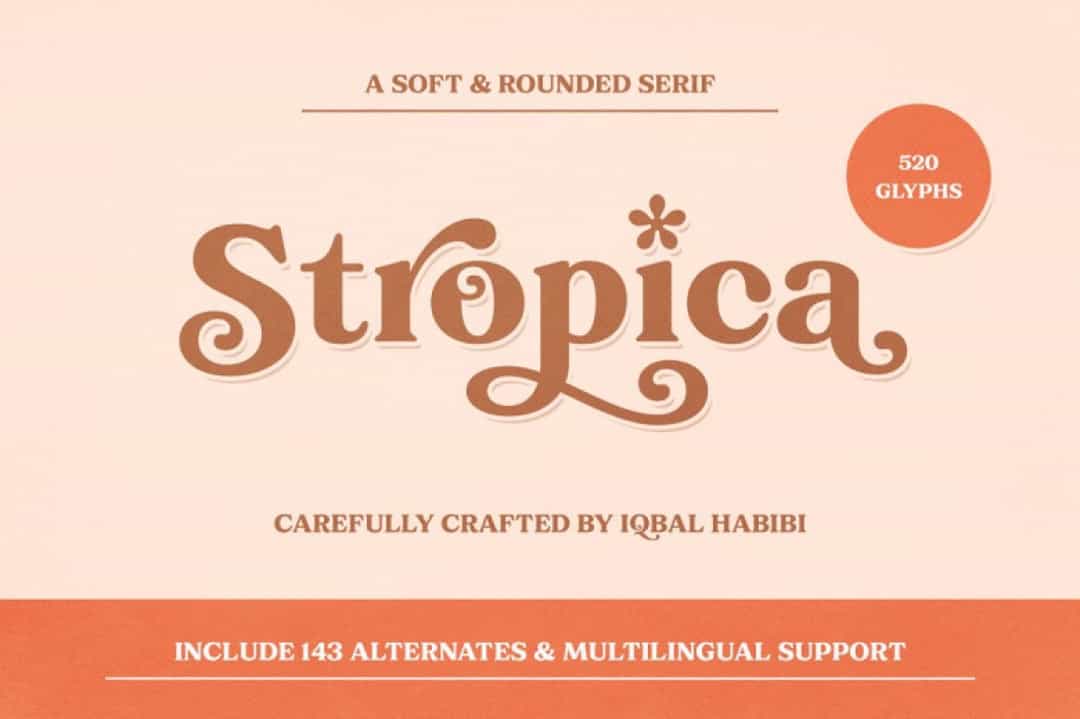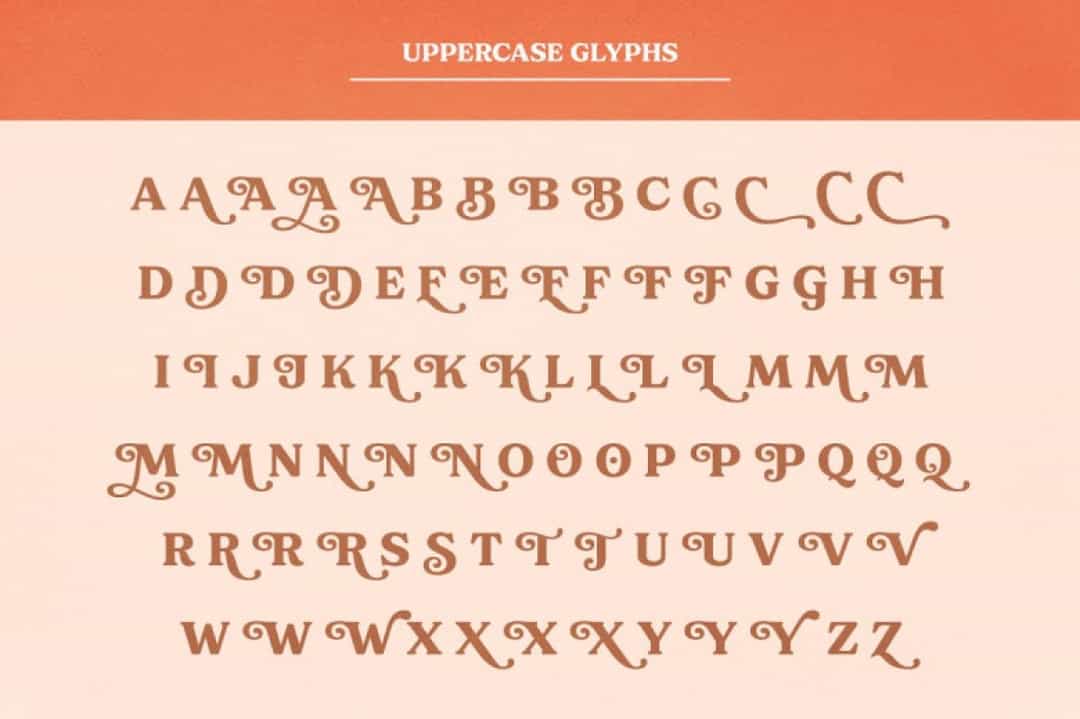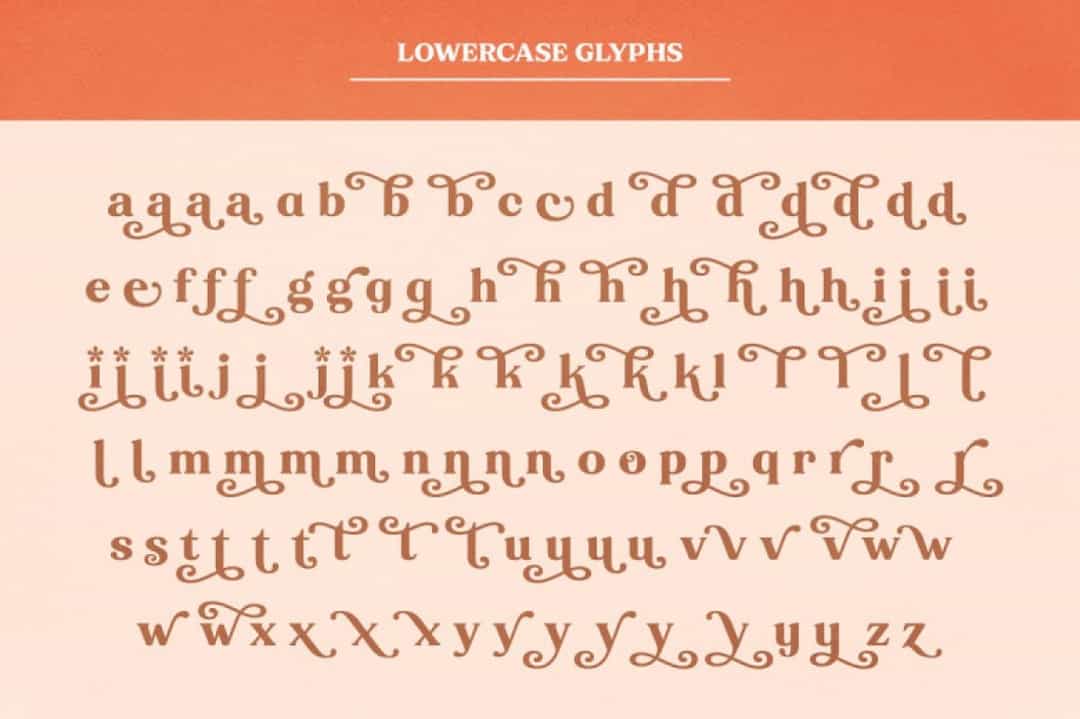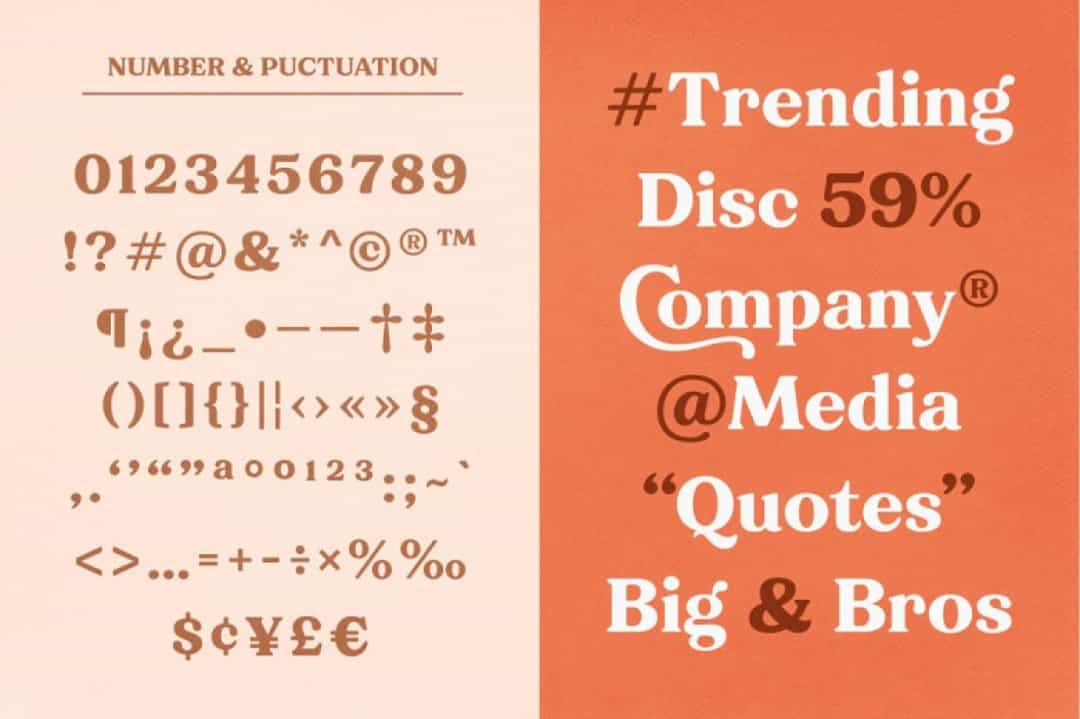
Stropica is an elegant, soft display serif font with retro vibes for today. It comes equipped with 520 glyphs and 143 alternative characters that add depth to designs while supporting Latin Extended Language.